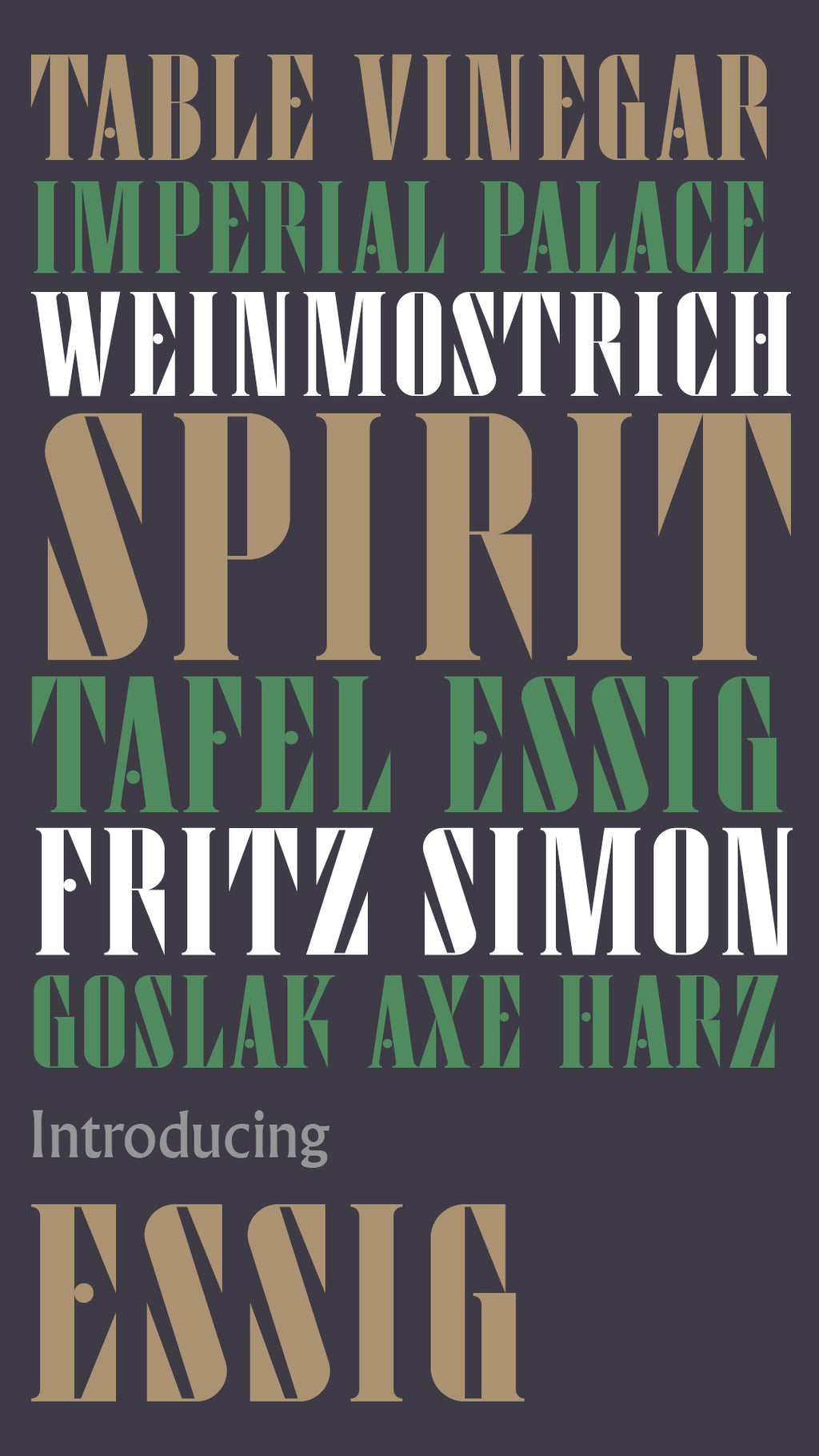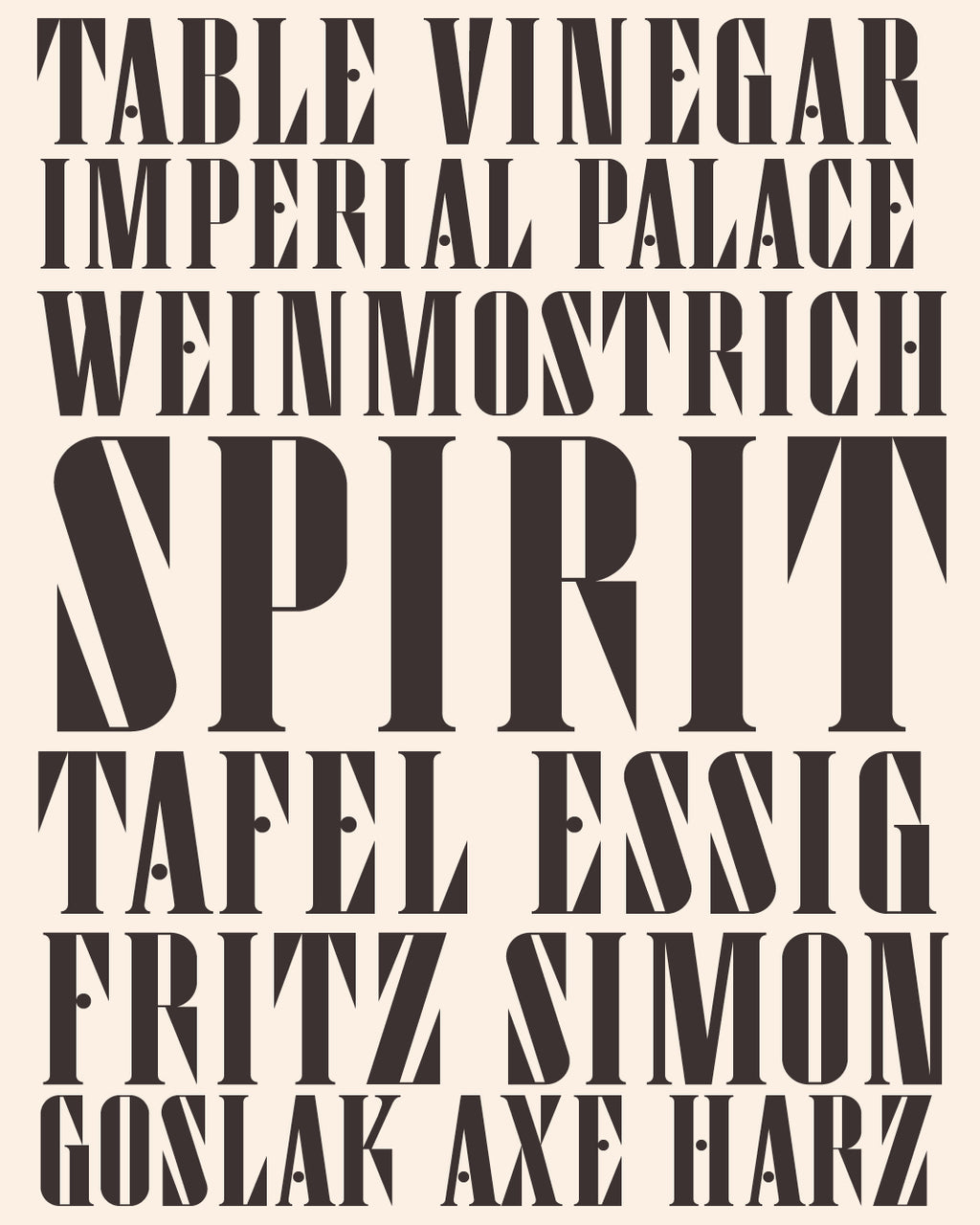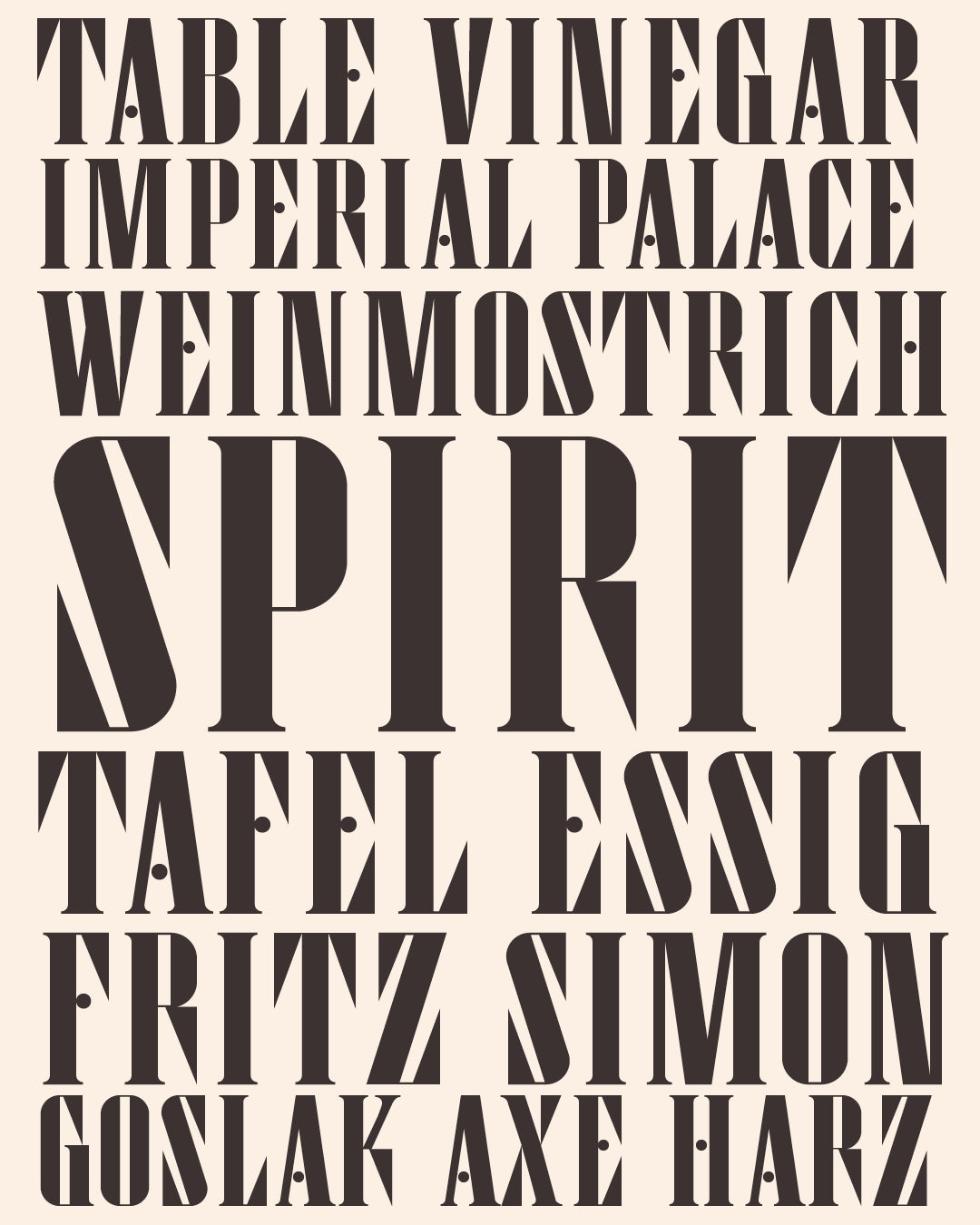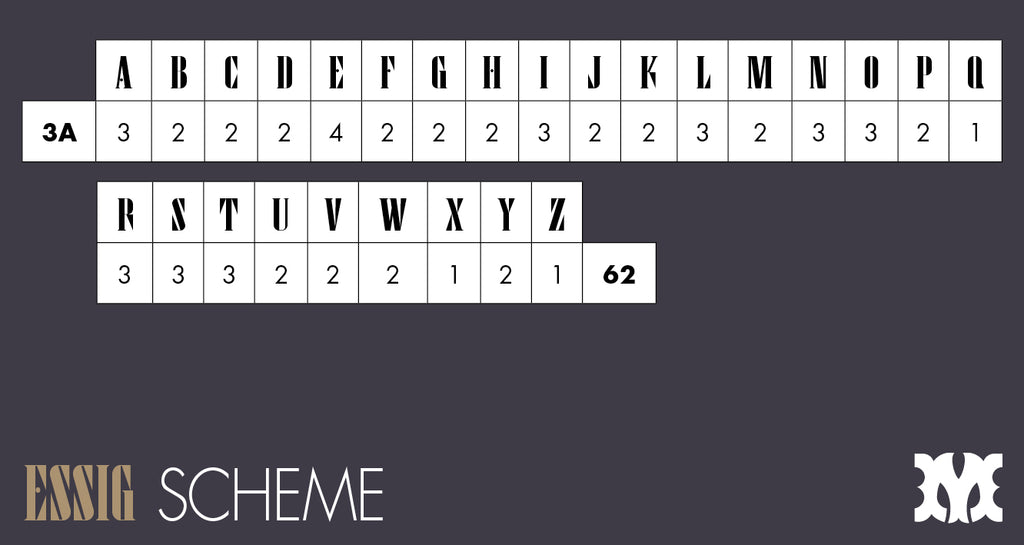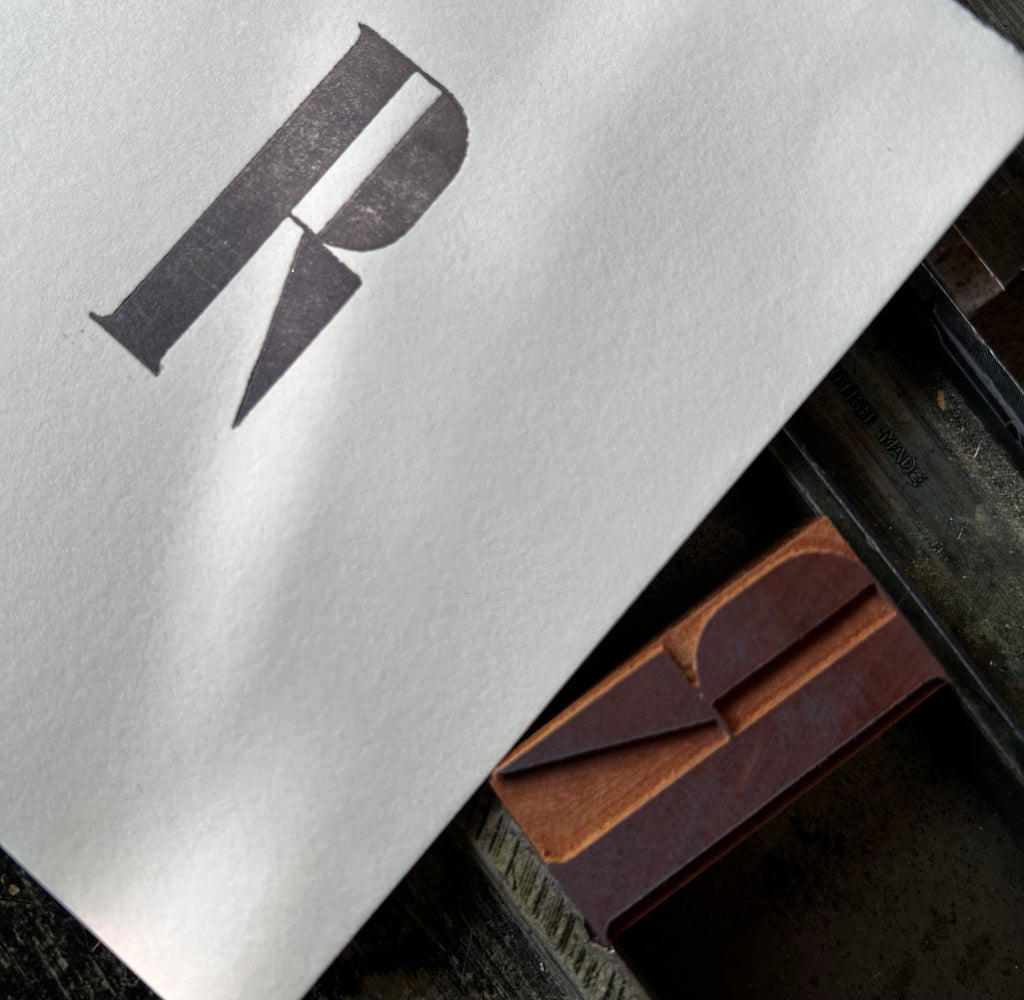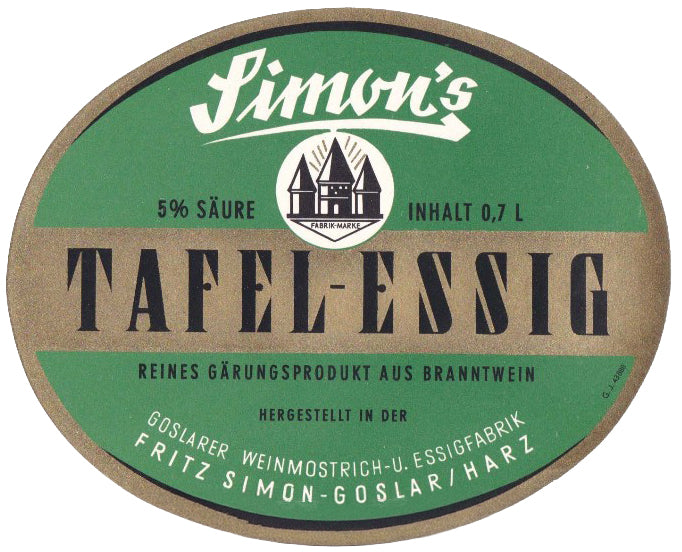
'Essig' letterpress woodtype typeface
Introducing 'Essig' - a typeface based on a vintage mid century German Vinegar label
10 line (42.3mm) cut from end grain English hardwood using a combination of modern CNC technology and traditional hand woodworking tools (including an original printers saw), made to English type-high (0.918in or 23.3mm) within plus or minus 0.1mm tolerance, sealed with shellac and hand finished with a traditional polished printing surface.
Endgrain English hardwood, clear shellac
Each block varies in width however average size is 28mm x 23.3mm x 42.3mm.